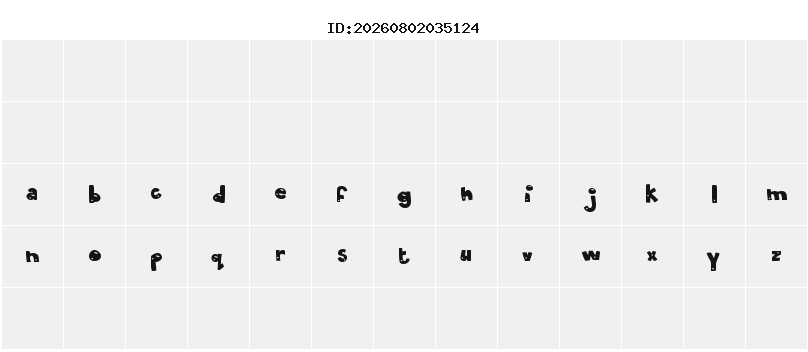
MTF Olive You Preview
• Font Name: MTF Olive You
• Full Font Name: MTF Olive You
• Designer: Miss Tiina
About MTF Olive You.ttf
MTF Olive You.ttf is a modern, elegant sans-serif font designed for ultimate readability and visual harmony. Perfect for branding, headlines, web design, and print materials.